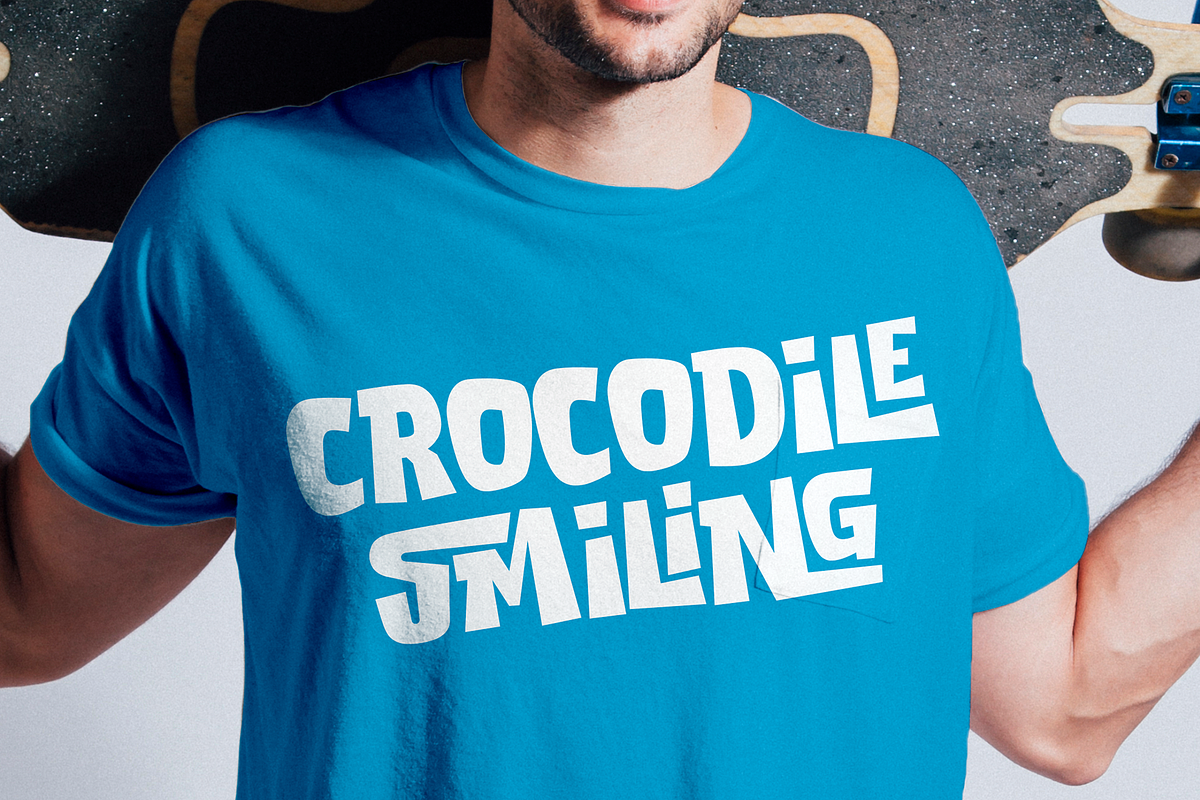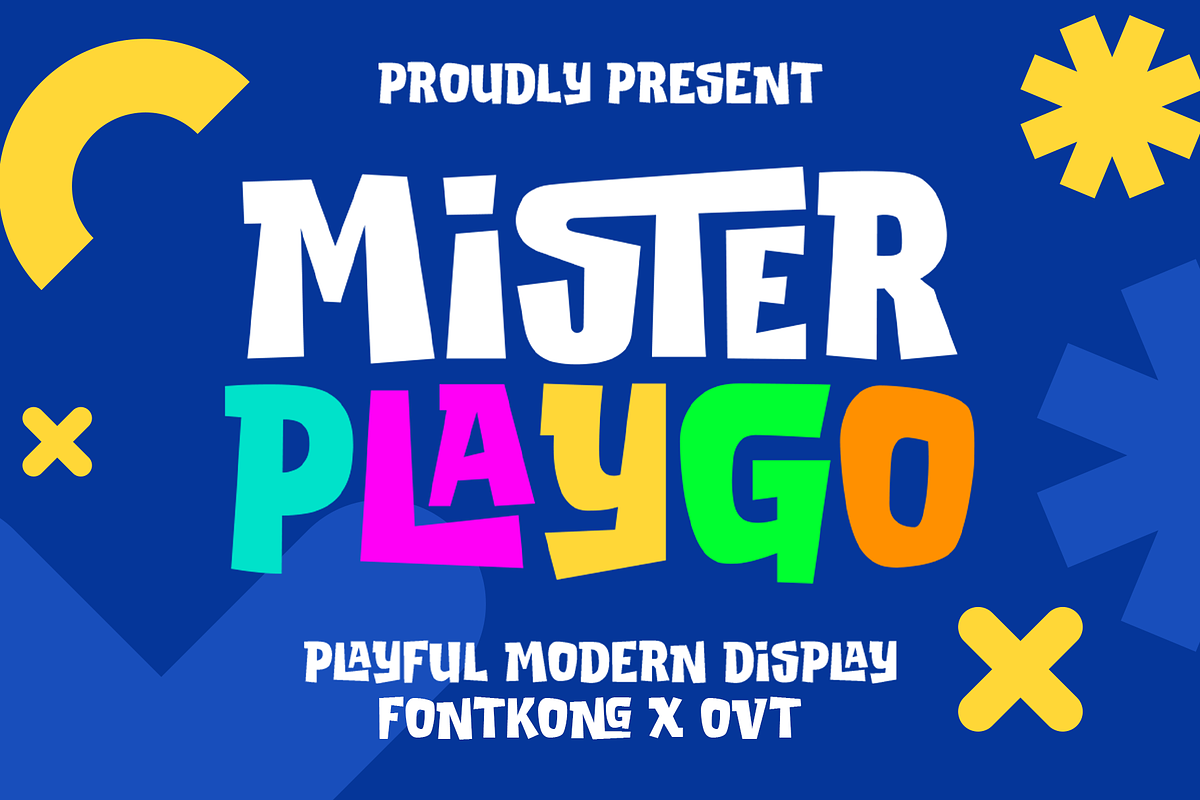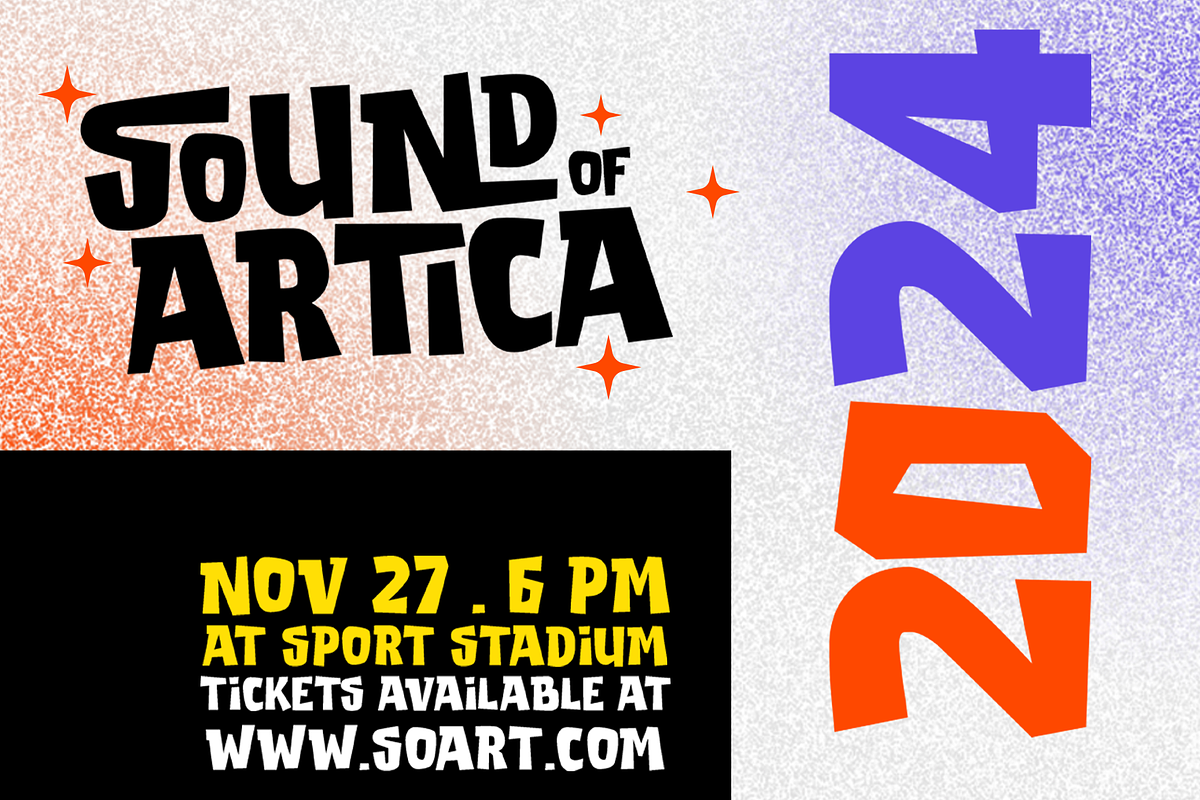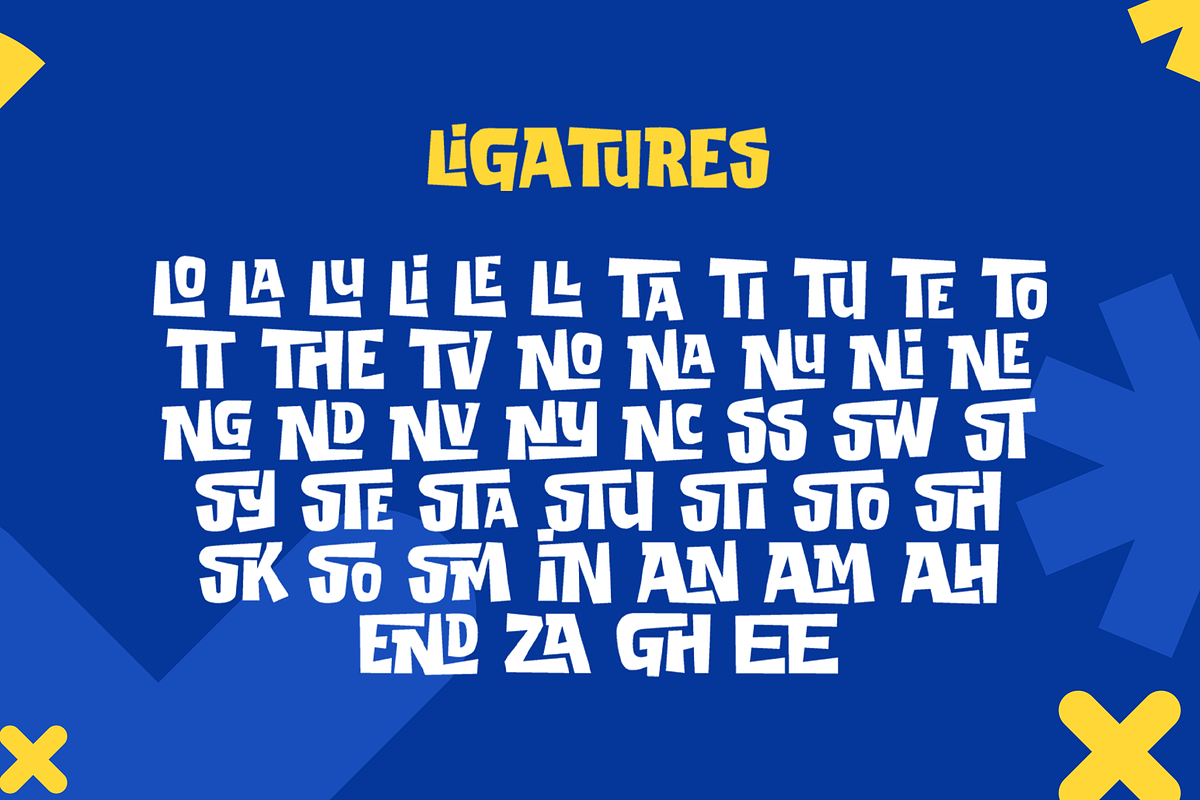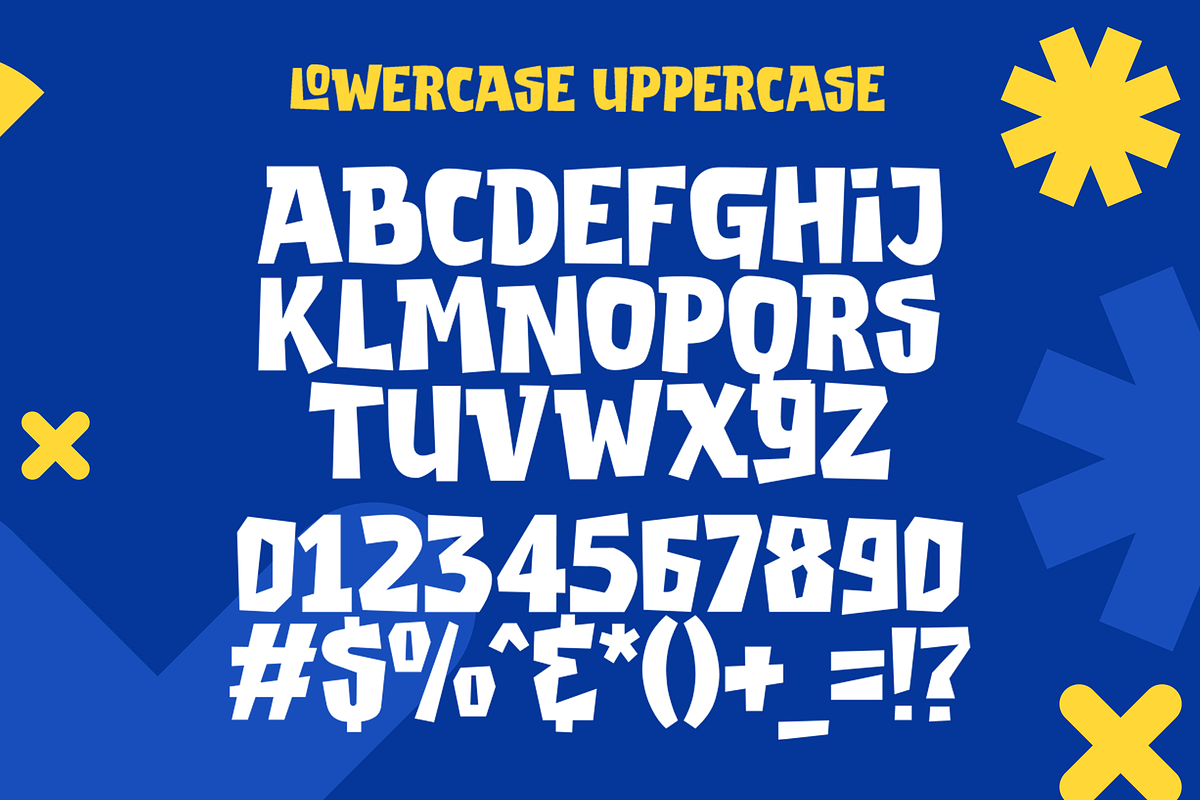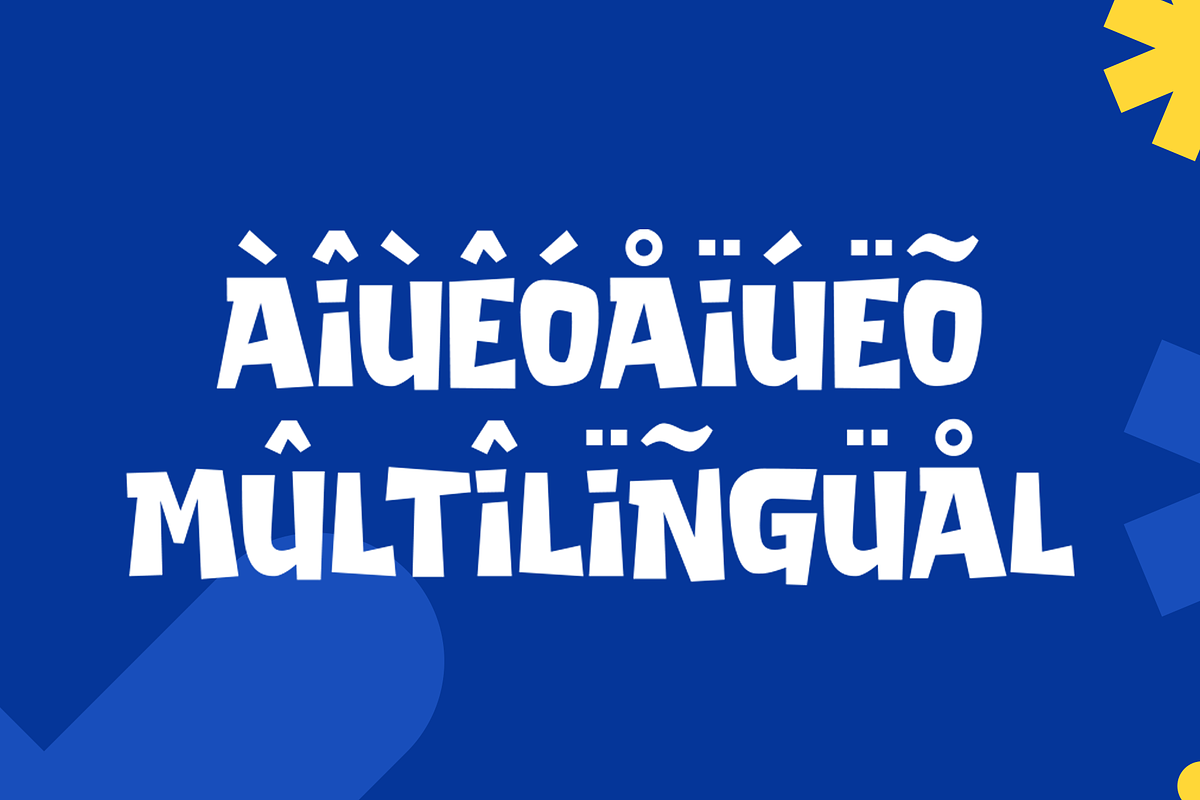
Mister Playgo-Playful Modern Display
Mister Playgo - Playful Modern Display Font
Introducing "Mister Playgo," a playful modern display font designed to bring a sense of fun and vibrancy to your design projects. Perfect for graphic designers, illustrators, and creatives who want to add a lively and contemporary touch to their work, Mister Playgo combines modern aesthetics with whimsical character shapes.
Ideal for children's books, posters, logos, social media graphics, and branding materials, Mister Playgo’s cheerful and dynamic style provides a fresh and engaging look. Each character is meticulously crafted to ensure readability while maintaining a playful and energetic feel, making it perfect for projects that need to stand out and capture attention.
The "Mister Playgo" font includes a full set of uppercase and lowercase letters, numbers, punctuation marks, and various ligatures and stylistic alternates. This versatility offers extensive creative freedom, allowing for a wide range of design applications, from vibrant posters to captivating social media content.
Infuse your designs with fun and modern flair using Mister Playgo, the playful display font that brings energy and joy to every project.